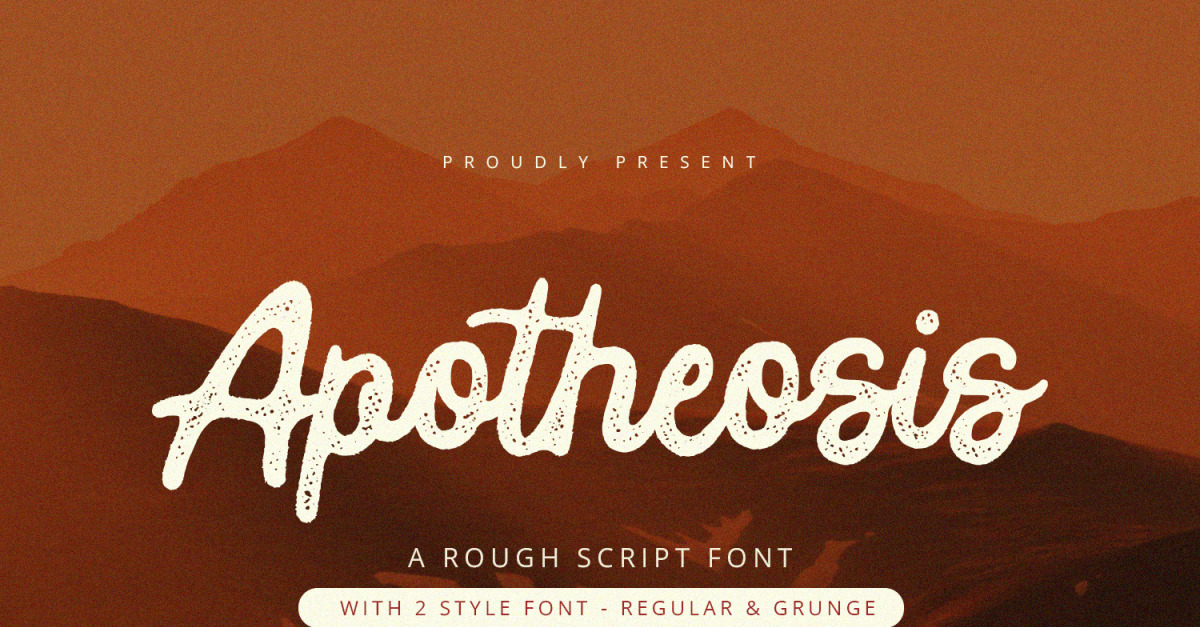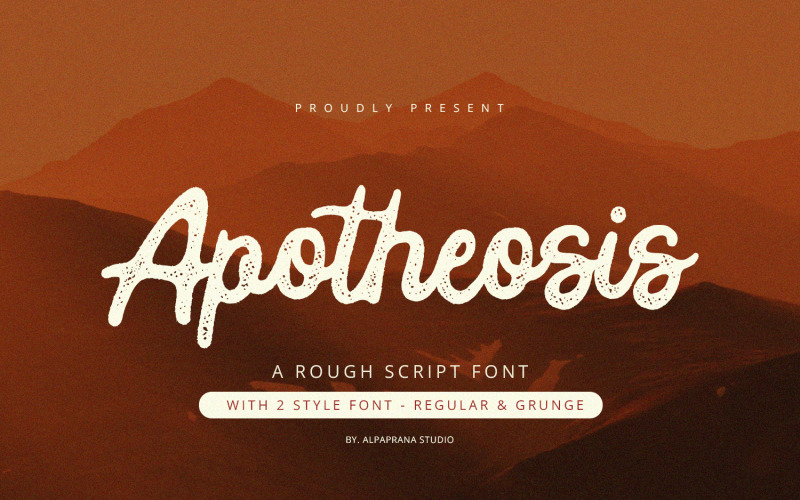
Apotheosis - Rough Script
Apotheosis is a rough script font with unique and classic feels. It will be perfectly used for Branding, Logo Design, Lettering, Logotype, Clothing, Poster, magazine, packaging, posters, shopping bags, t-shirts, book covers, photography, special events and other design project.
Features :
- Uppercase & Lowercase
- Numerals
- Punctuations (OpenType Standard)
- Accents (Multilingual Characters)
- Ligatures and Alternative Style Stylistic Set